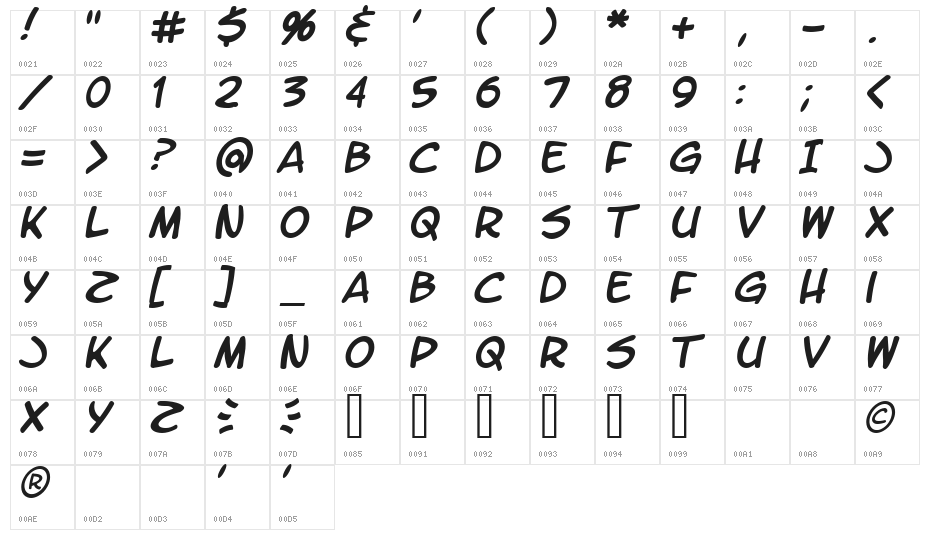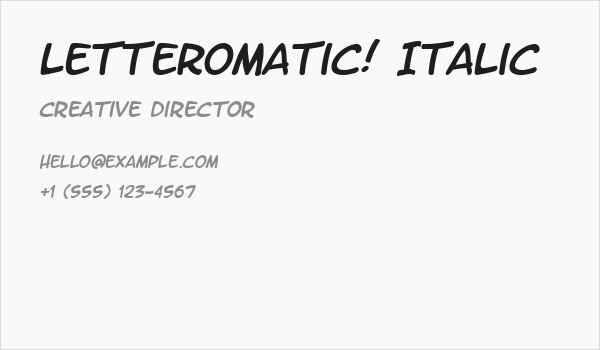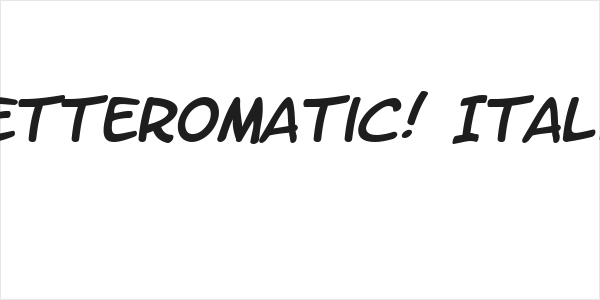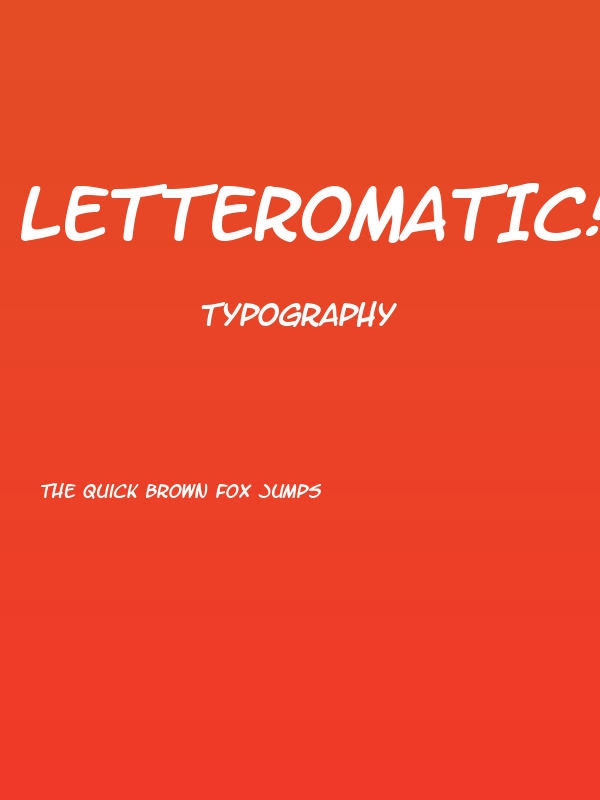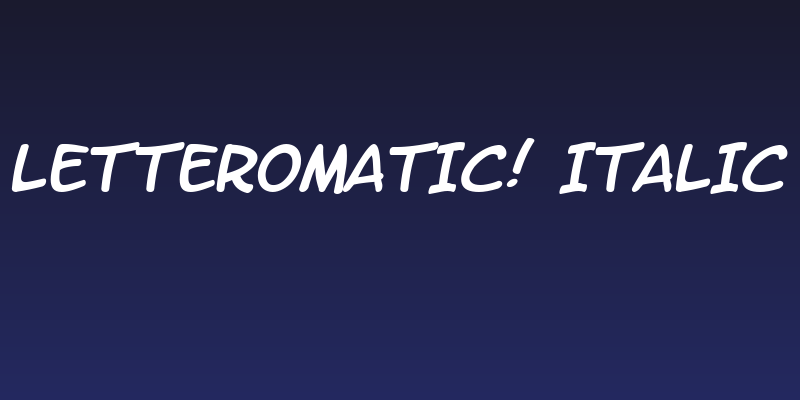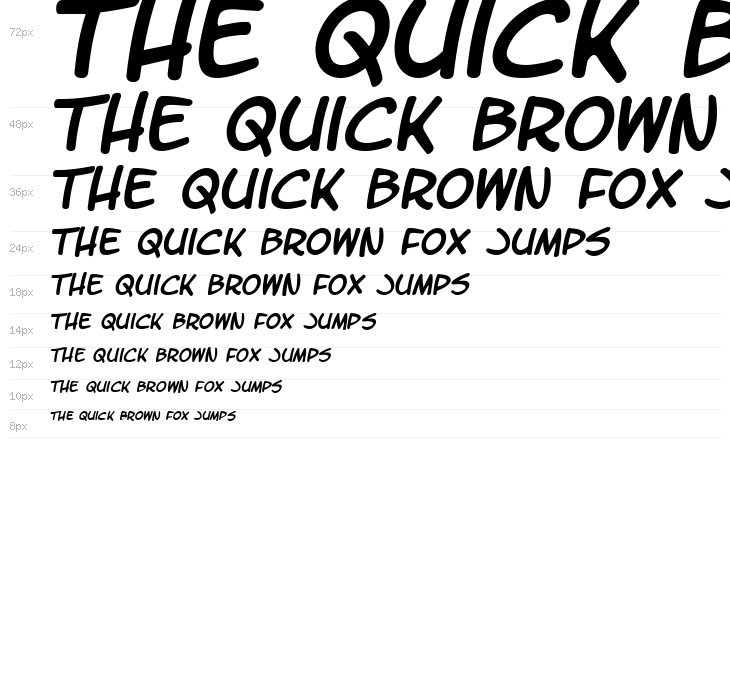
LetterOMatic! Italic Font
LetterOMatic! Italic Description
This font features a playful and dynamic style with a handwritten appearance. The letters are slightly slanted, giving it an italicized look that adds a sense of movement and energy. The strokes are bold and rounded, creating a friendly and approachable feel. The characters are well-spaced, ensuring readability while maintaining a casual aesthetic. This font includes a full set of uppercase and lowercase letters, numbers, and a variety of special characters, making it versatile for different design needs.
| Proposed Projects | Ideal for projects that require a personal touch, such as greeting cards, invitations, or playful branding materials. It can also be used effectively in social media graphics and informal presentations. |